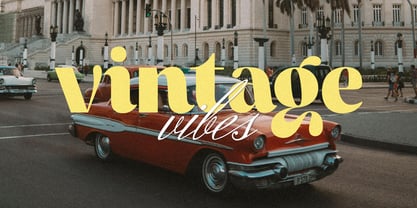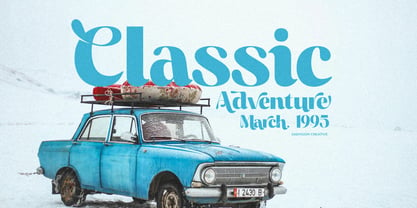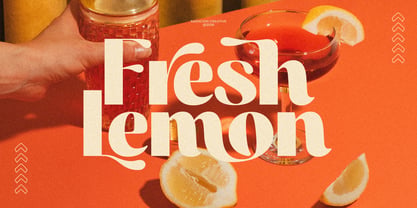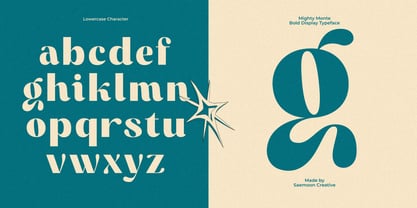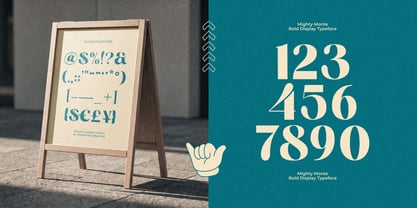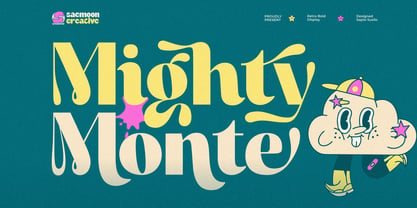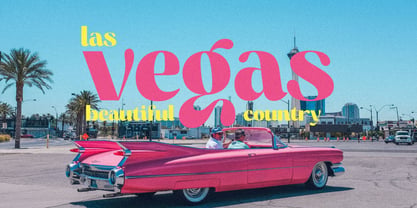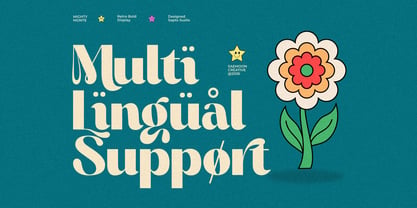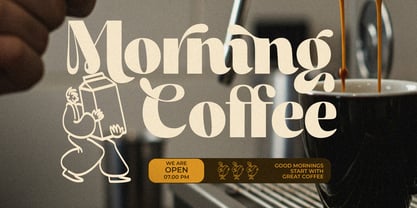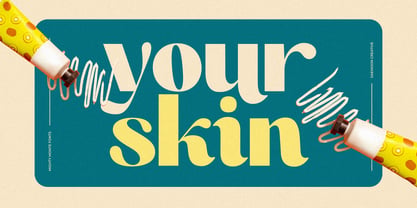
Mighty Monte
by Saemoon Creative
The Mighty Monte Font Family was designed by Sapto Susilo and published by Saemoon Creative. Mighty Monte contains 2 styles and family package options. More about this family
Mighty Monte is a playful display font inspired by bold retro vibes. With its soft curves, chunky shapes, and quirky details, it brings a fun and expressive feel to any design. It also includes ligatures and alternate characters, giving you more creative freedom to mix and match letterforms for a unique and custom look. Perfect for posters, branding, packaging, and eye-catching headlines, Mighty Monte adds a cheerful and distinctive touch wherever it’s used.
Designers: Sapto Susilo
Current Foundry: Saemoon Creative